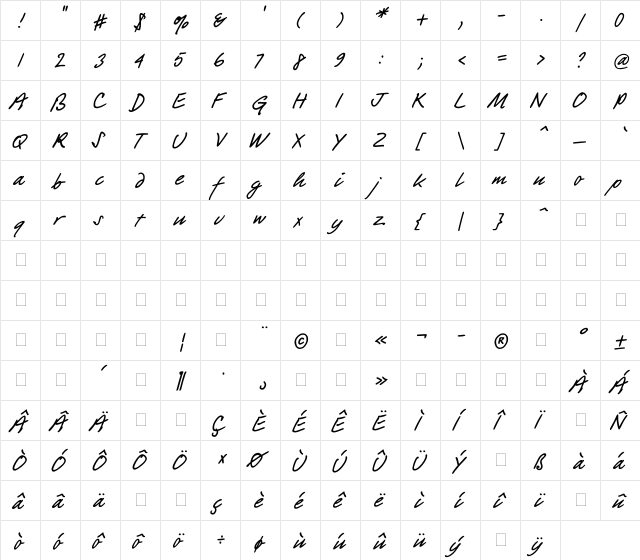
PT Script (Unreg.) Barguzin Regular
| Designer | Stuff designers of ParaType |
Design Context for PT Script (Unreg.) Barguzin Typeface
PT Script (Unreg.) Barguzin flows with the natural rhythm of handwritten lettering, making it ideal for designs that call for warmth and personal expression.